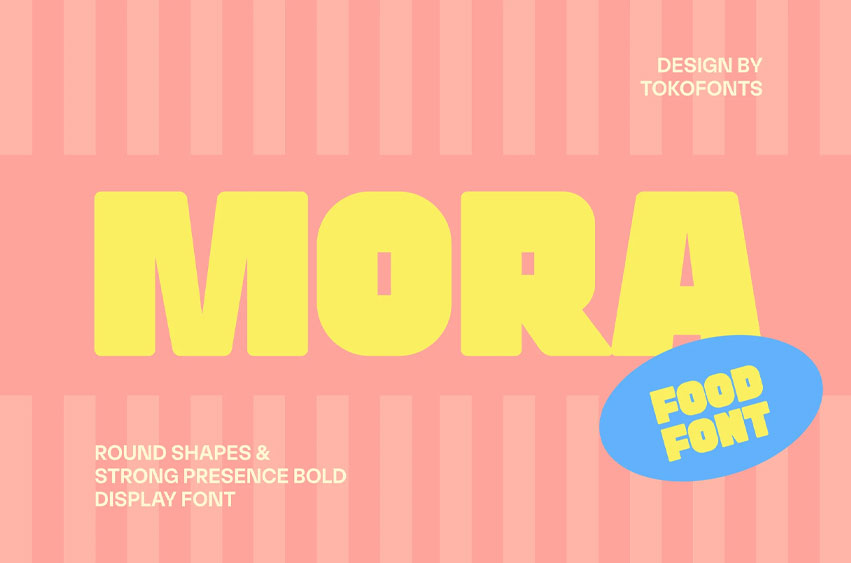
Mora Font is a bold and playful display font designed to bring energy into every food logo and modern brand identity. With its round shapes and strong presence, this typeface is perfect for coffee shops, bakery concepts, cafe branding, and restaurant visuals that want to stand out. Inspired by the fun world of burger menus, sweet candy treats, and delicious chocolate creations, Mora delivers a fresh and inviting look that instantly connects with audiences.
Ideal for menu designs, packaging, and promotional materials, Mora fits seamlessly into themes of pizza, ice desserts, and everyday cooking experiences. Its friendly and confident style makes it a great choice for any kitchen-inspired project, helping brands create a memorable and appetizing identity. Whether you are building a vibrant food brand or a cozy cafe concept, Mora adds a distinctive flavor that enhances every visual presentation.